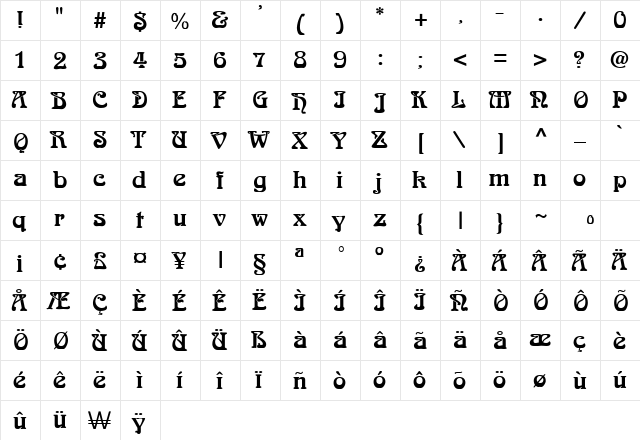
Artifact Regular
Design Context for Artifact Typeface
Artifact is a composed and adaptable typeface that performs quietly and consistently across a wide range of design contexts.